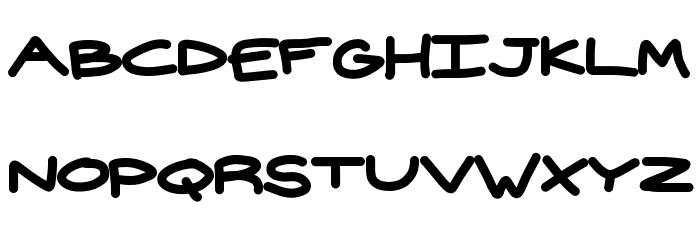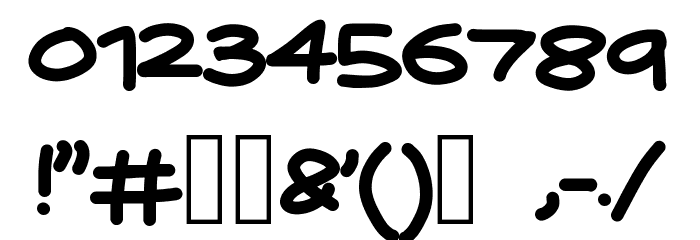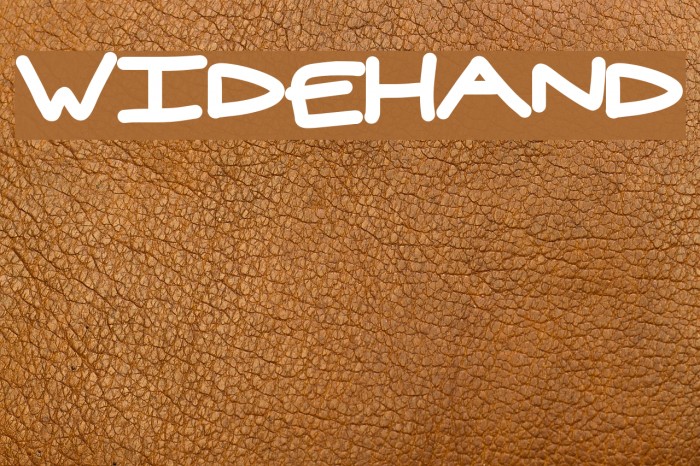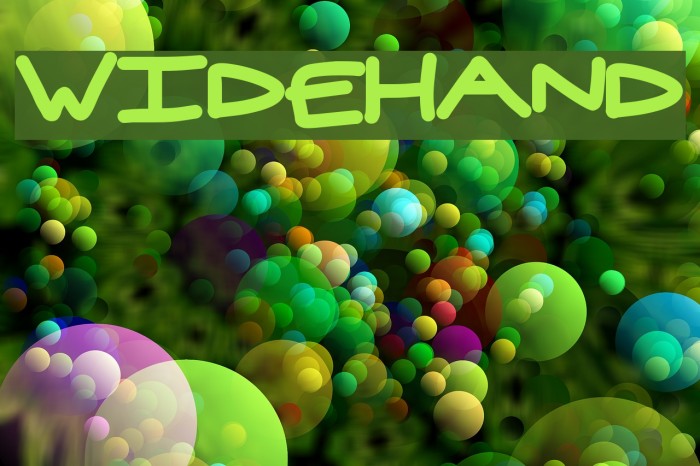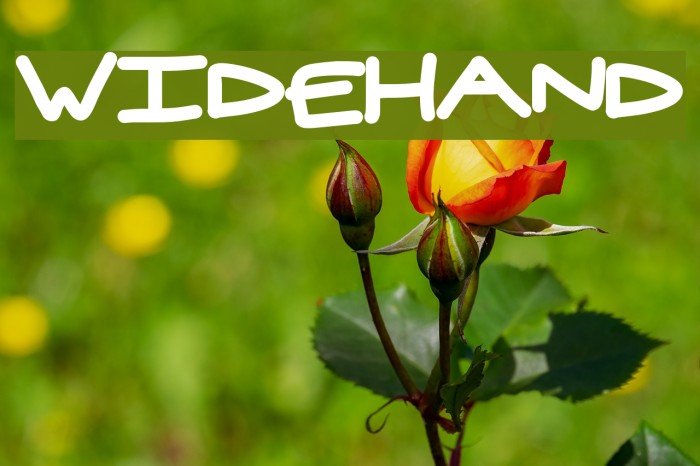
widehand Font
This font features a playful and casual handwritten style, characterized by its bold and rounded letterforms. The strokes are consistent in thickness, giving it a uniform appearance. The characters have a slight slant, adding to the informal and friendly feel. The uppercase and lowercase letters are well-proportioned, with a slight variation in height that enhances its handwritten aesthetic. The numerals are clear and easy to read, maintaining the same playful style as the letters. Special characters are included, matching the overall design with rounded edges and a consistent stroke width.
A bold, playful handwritten font with rounded edges and consistent stroke width.
- Proposed Projects: Ideal for children's books, playful branding, casual invitations, and social media graphics.
- Overall Style: Casual, Playful
- Use Case: Headlines, Logos, Invitations